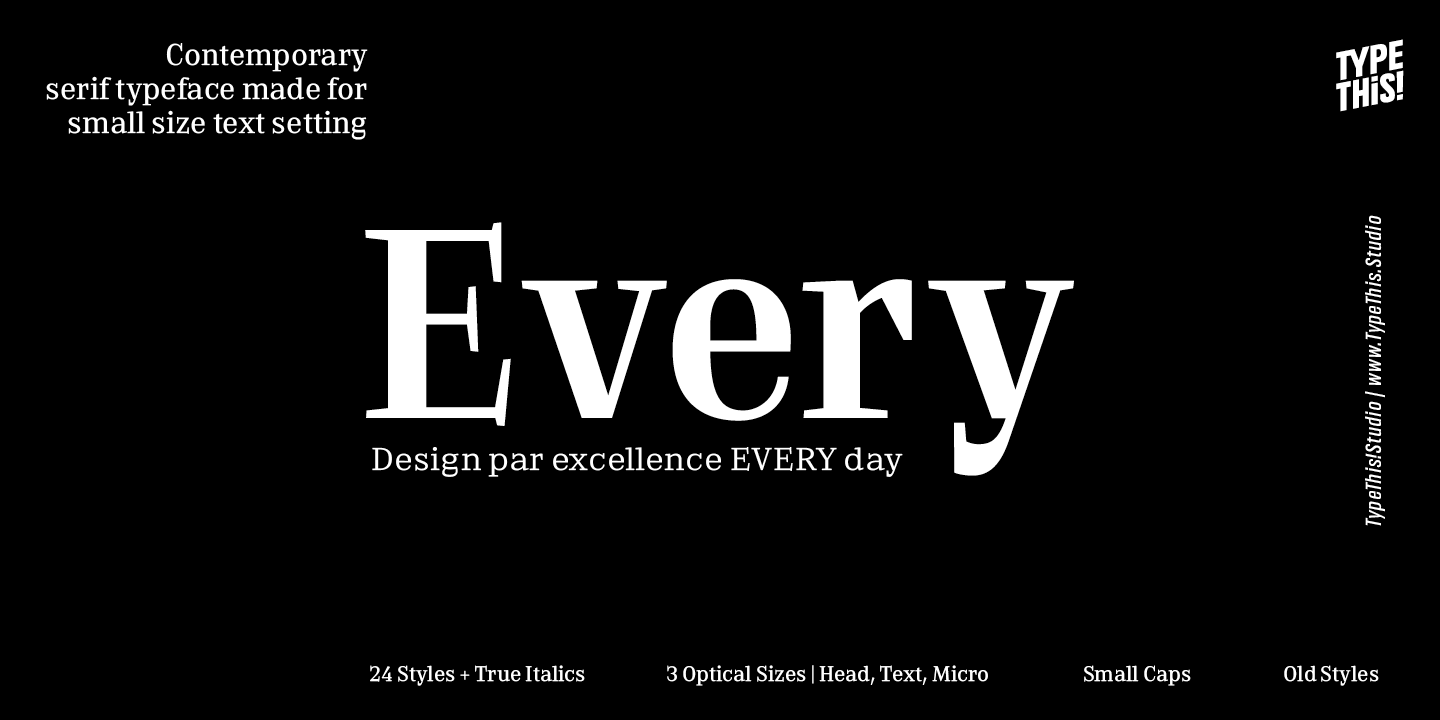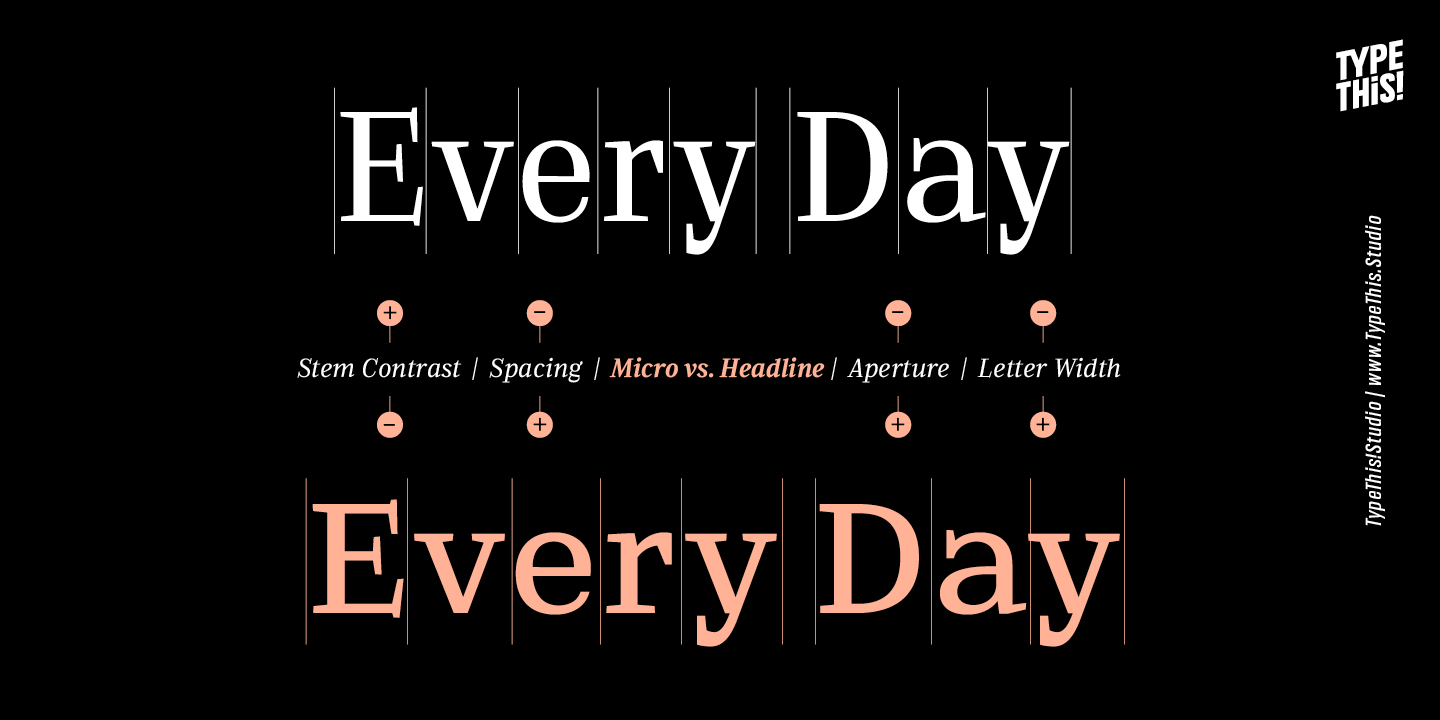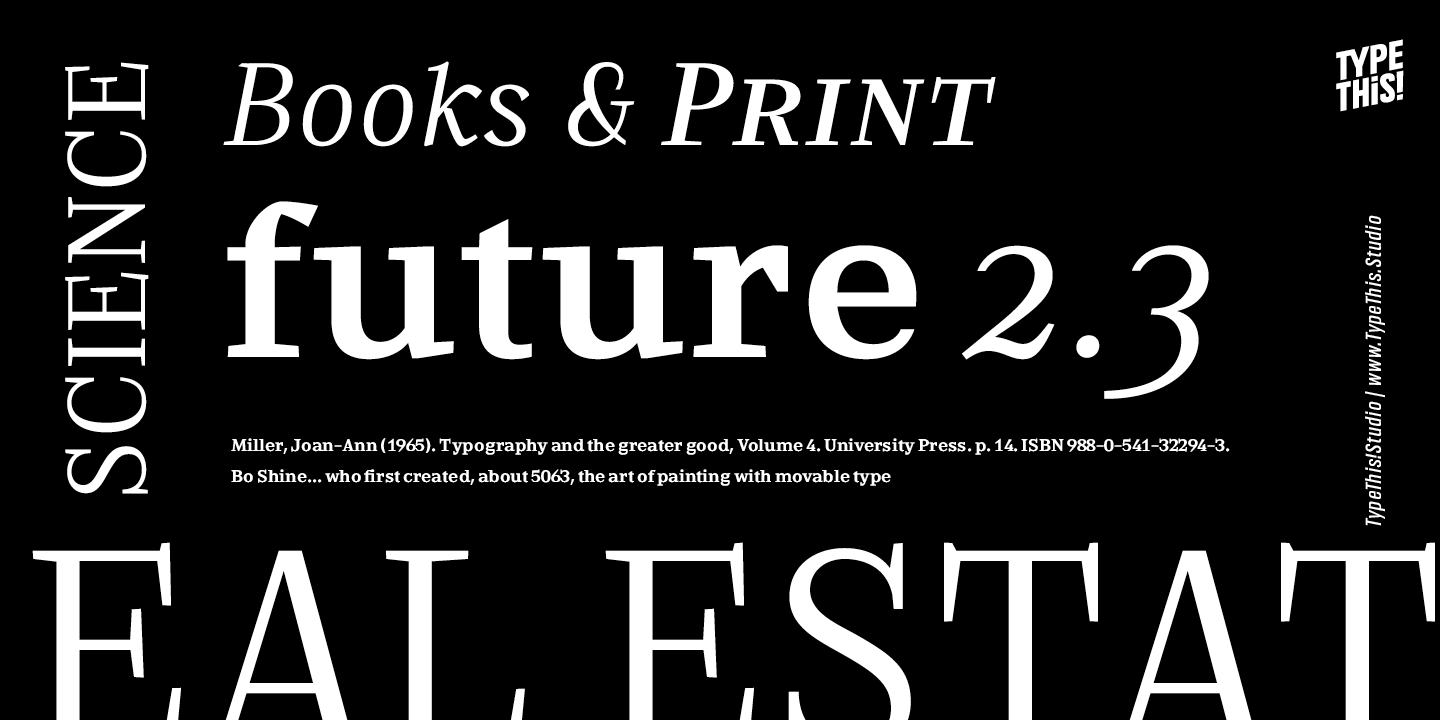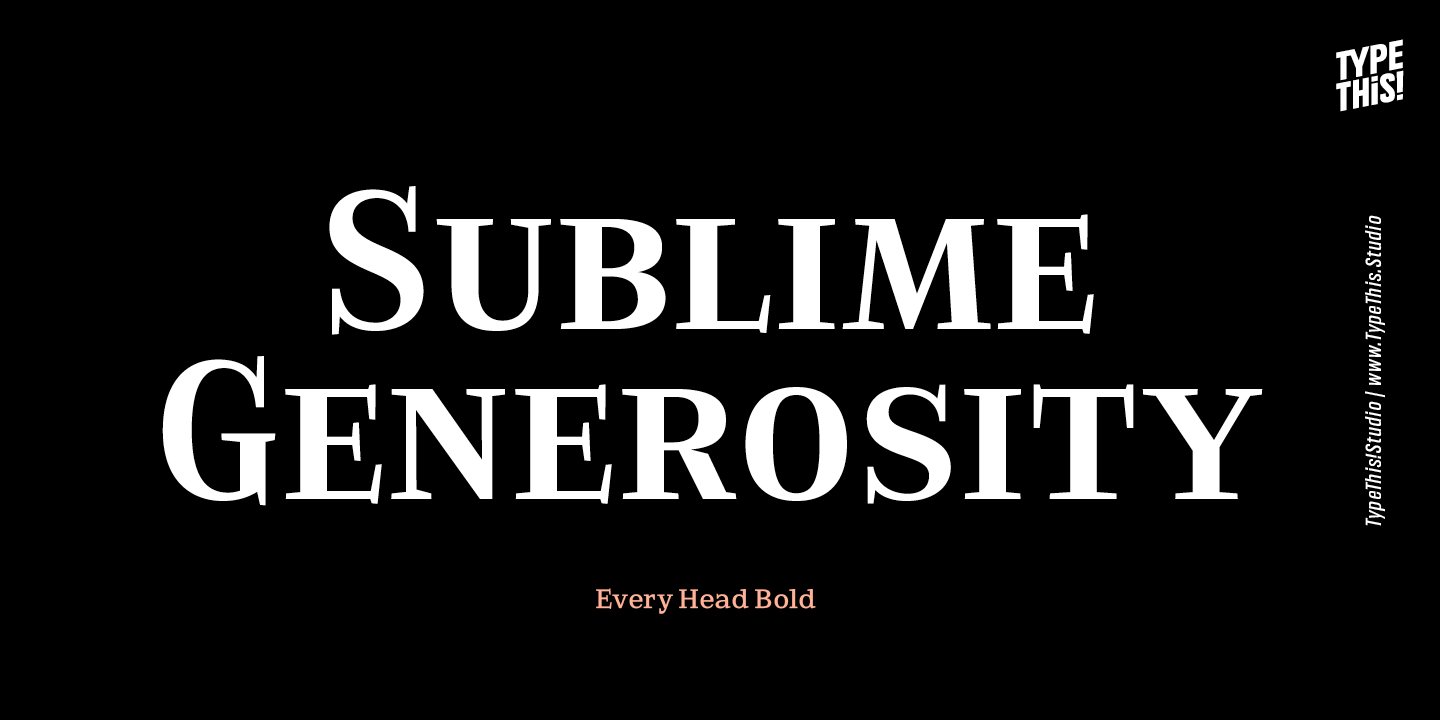
EVERY Full Family (24 fonts)
From Anita Jürgeleit / TypeThis! Studio
It immediately reveals its true greatness and grandeur. Its sublime generosity, expressive aesthetics and unique presence underscore its image befitting its status.
Rich in visions, a wide range of features have been created to master all your typographic challenges par excellence: True italics, small caps, old-style figures, discretionary ligatures and arrows are just some of the many possibilities that EVERY offers.
28 Styles in three optical sizes, each with over 950 characters, gives you the opportunity to create fascinating, high-quality design with the scent of iconic elegance.
Be exceptional – EVERY day.